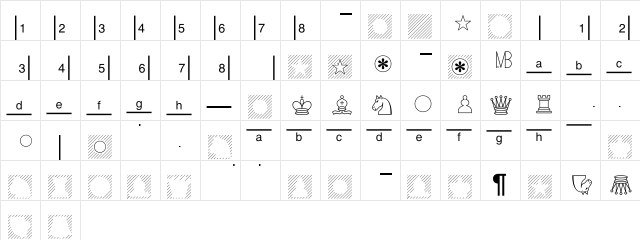
DiagramTTBlindBlack Regular
Design Context for DiagramTTBlindBlack Typeface
DiagramTTBlindBlack is a composed and adaptable typeface that performs quietly and consistently across a wide range of design contexts.